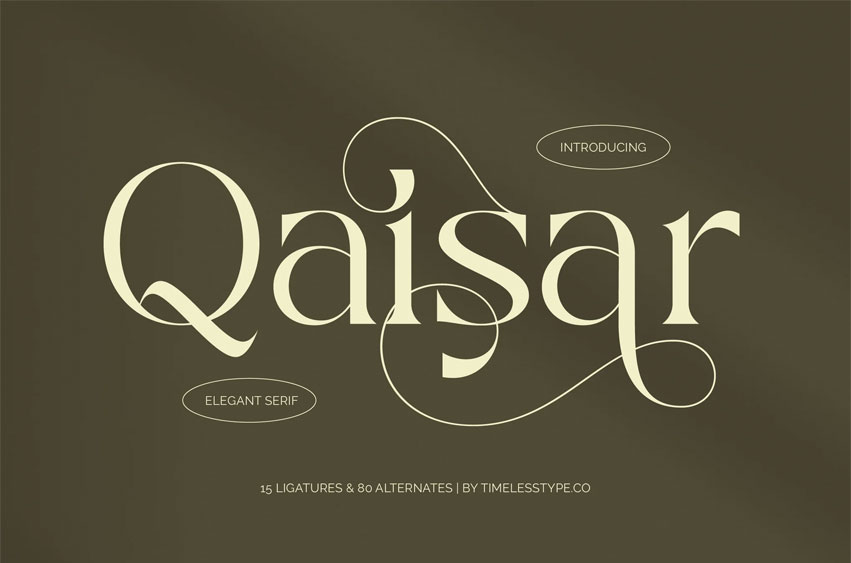
Qaisar Font
Qaisar Font is an elegant serif typeface designed with refined contrast, flowing curves, and luxurious ornamental swashes. Crafted for premium branding, editorial layouts, packaging, products, and high-end visual identities, this font blends timeless sophistication with expressive alternates.
Featuring 15 ligatures and 80 stylistic alternates, Qaisar gives you the tools to create dramatic headlines, upscale logo designs, and artistic typographic compositions with ease. Every glyph is tuned to deliver a polished, graceful, and exclusive feel.